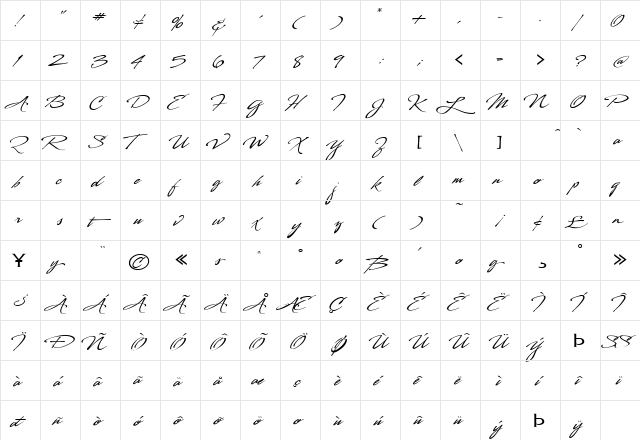
LHFSofiaScript Medium Font Preview
LHFSofiaScript Medium
Design Context for LHFSofiaScript Typeface
LHFSofiaScript brings a calligraphic fluidity to the page — its connecting strokes and expressive curves give it an unmistakably human quality.
Font Pairing: Combine LHFSofiaScript with a simple geometric sans for maximum contrast — the tension between flowing curves and clean structure is a classic typographic pairing.
Pro Tip: Pair LHFSofiaScript with a clean sans-serif for supporting text. The contrast between fluid script and geometric structure creates an elegant typographic hierarchy.